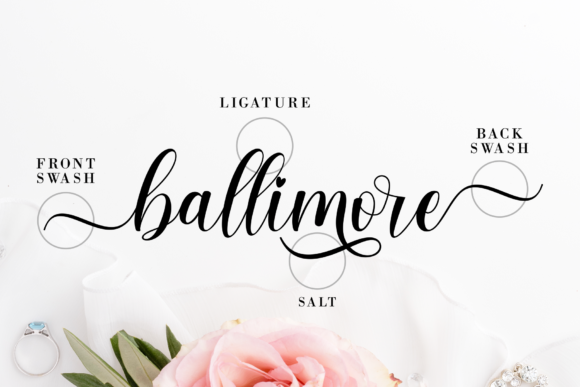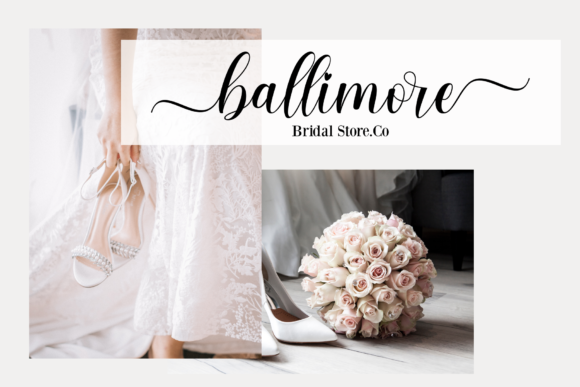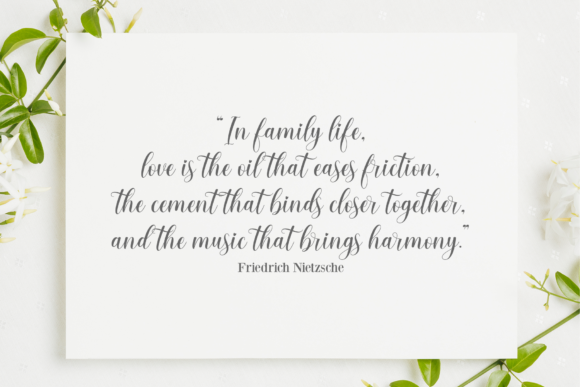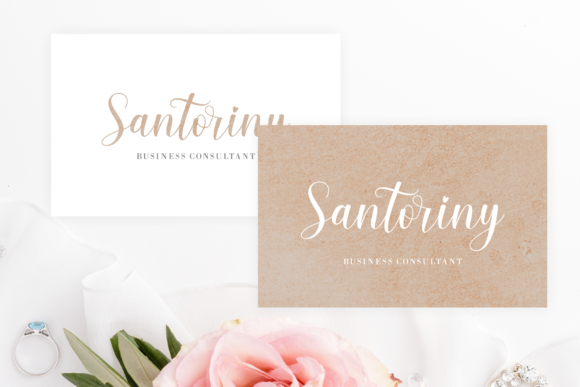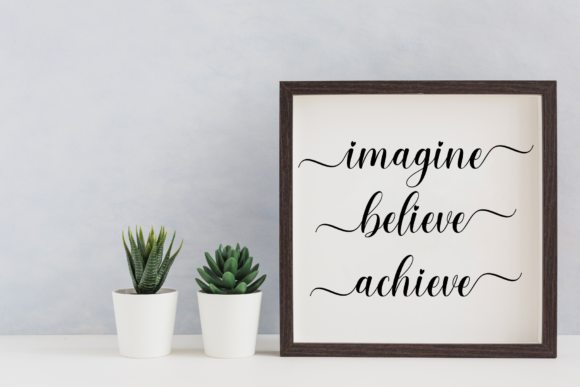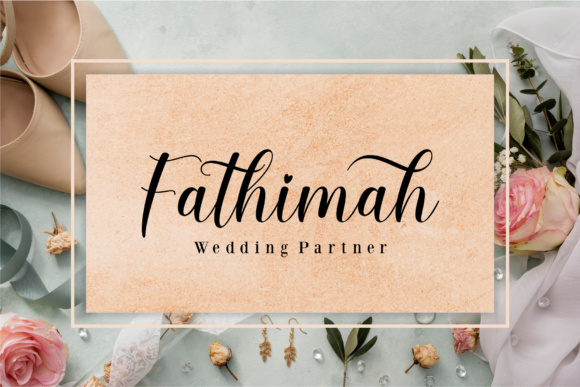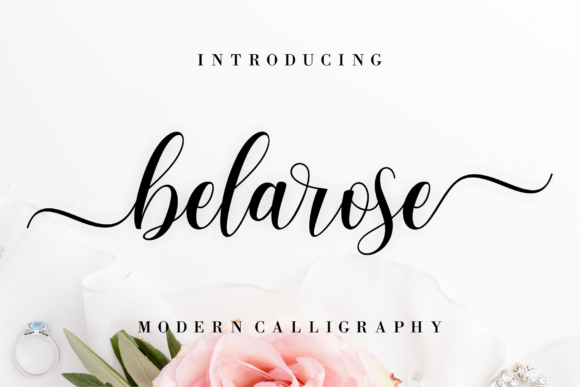
Introducing Belarose Font: The Ultimate Handwritten Font for Creative Projects
Are you a designer or crafter looking for a unique and charming font to elevate your creative projects? Look no further than Belarose Font! This beautiful handwritten font is designed to capture the hearts of designers and crafters alike, with its versatile style and stunning features. In this article, we’ll dive into the world of Belarose Font and explore its incredible capabilities.
What Makes Belarose Font So Special?
Belarose Font is a true gem in the world of typography. Created with love and care, this font is designed to become a true favorite among designers and crafters. Its charming handwritten style is perfect for a wide range of creative projects, from wedding invitations and stationery to social media posts and more.
One of the standout features of Belarose Font is its PUA (Private Use Area) encoding. This means that you can access all of the glyphs and swashes with ease, giving you unparalleled creative control over your projects. Whether you’re looking to add a personal touch or create a unique brand identity, Belarose Font has got you covered.
Key Features of Belarose Font
So, what makes Belarose Font so special? Here are just a few of its key features:
- Varying Baseline: Belarose Font features a varying baseline that adds a touch of elegance and sophistication to your projects.
- Smooth Lines: The font’s smooth lines and curves create a beautiful, flowing effect that’s perfect for creating eye-catching designs.
- Gorgeous Glyphs: Belarose Font comes with a range of gorgeous glyphs and swashes that can be used to add a personal touch to your projects.
- Stunning Alternates: The font also features stunning alternates that allow you to experiment with different styles and create unique designs.
Belarose Font is incredibly versatile, making it perfect for a wide range of creative projects. Here are just a few ideas to get you started:
- Wedding Invitations: Create beautiful, one-of-a-kind wedding invitations that set the tone for the big day.
- Stationery: Design stunning stationery, including letterheads, notecards, and more.
- Social Media Posts: Create eye-catching social media posts that grab attention and drive engagement.
- Branding: Use Belarose Font to create a unique brand identity that sets your business apart.
Why Choose Belarose Font?
So, why choose Belarose Font for your creative projects? Here are just a few reasons:
- Unique Style: Belarose Font offers a unique and charming style that’s sure to capture the hearts of your audience.
- Ease of Use: The font’s PUA encoding makes it easy to access all of the glyphs and swashes, even for beginners.
- High-Quality Design: Belarose Font is designed to the highest standards, ensuring that your projects look professional and polished.
In conclusion, Belarose Font is a must-have for designers and crafters looking to elevate their creative projects. With its charming handwritten style, PUA encoding, and stunning features, this font is sure to become a true favorite. Whether you’re creating wedding invitations, stationery, social media posts, or more, Belarose Font is the perfect choice. So why wait? Download Belarose Font today and unleash your creativity!
With Belarose Font, the possibilities are endless. Its versatility, ease of use, and high-quality design make it an essential tool for any designer or crafter. Don’t miss out on the opportunity to take your creative projects to the next level with Belarose Font.